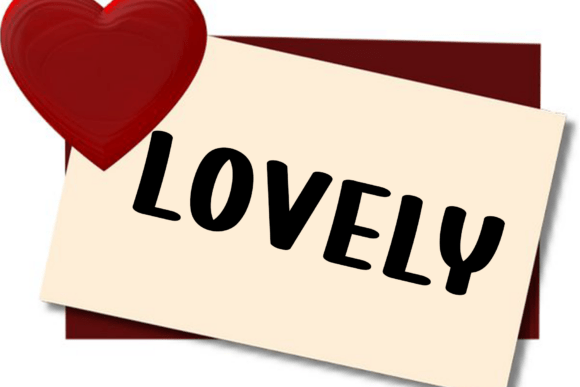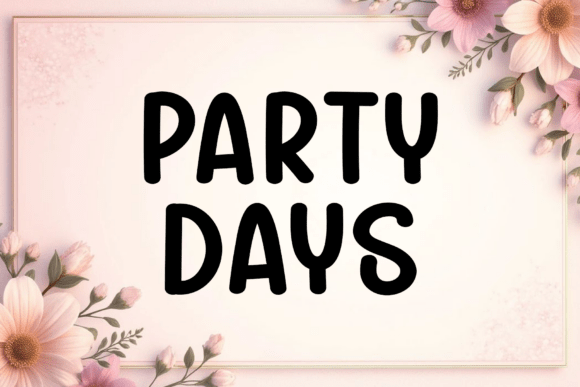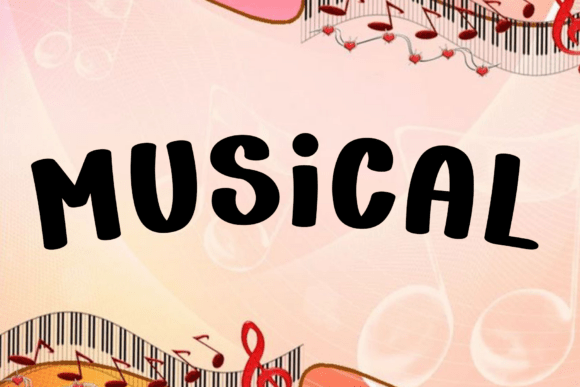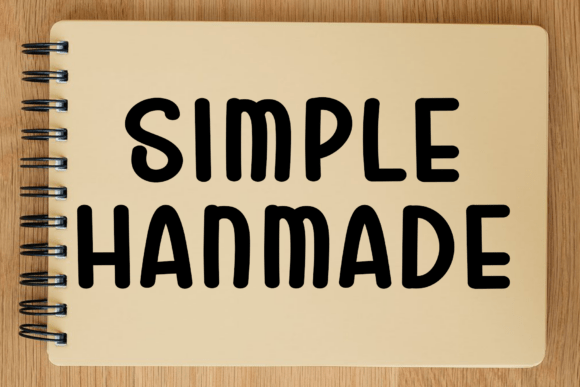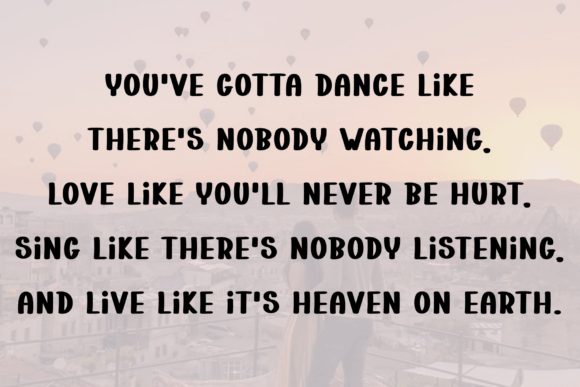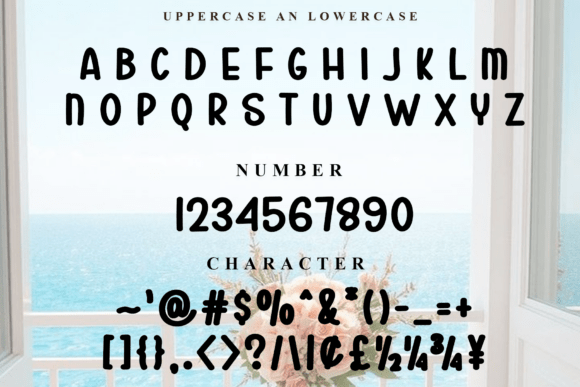
Introduction to Lovely Ice Cream Font
Lovely Ice Cream is a festive and merry typeface that captures the spirit of the holiday season.
Key Features of Lovely Ice Cream Font
Why Choose Lovely Ice Cream Font?
Lovely Ice Cream Font offers exceptional quality and versatility, making it a valuable addition to your design toolkit. Whether you’re creating for personal projects or commercial use, Lovely Ice Cream Font delivers professional results.